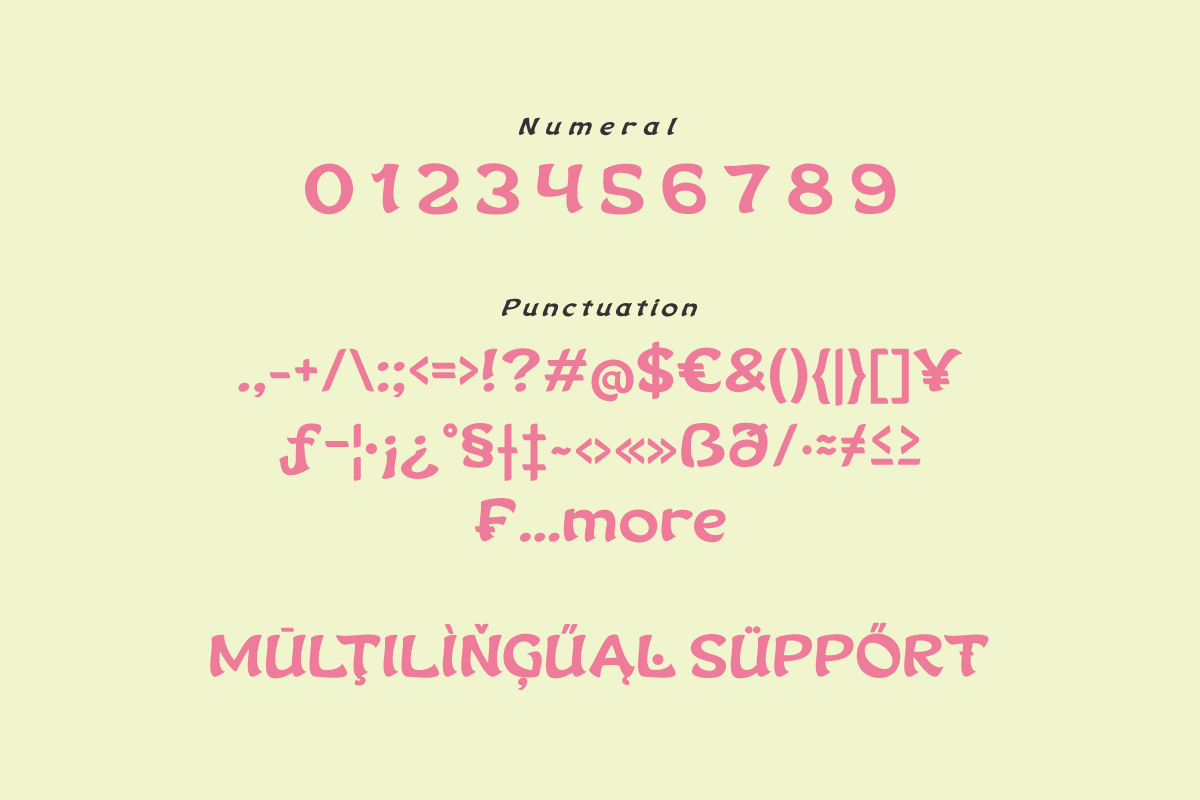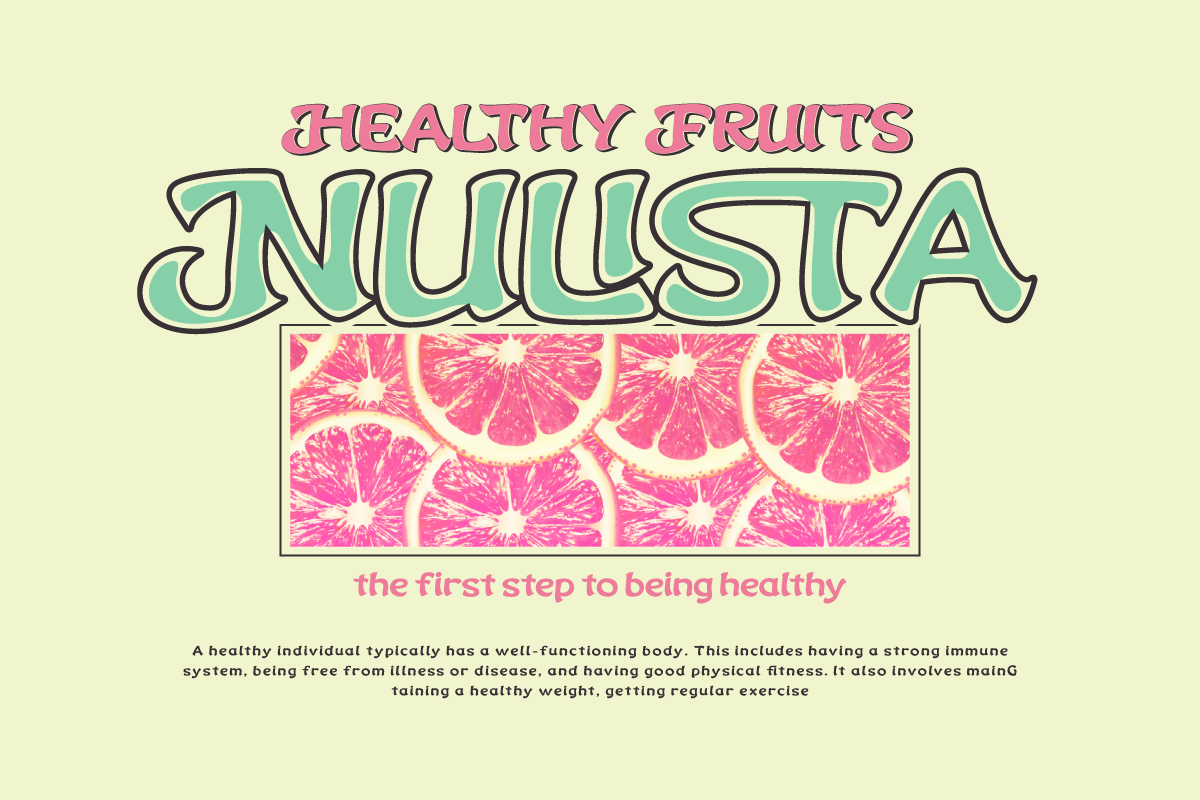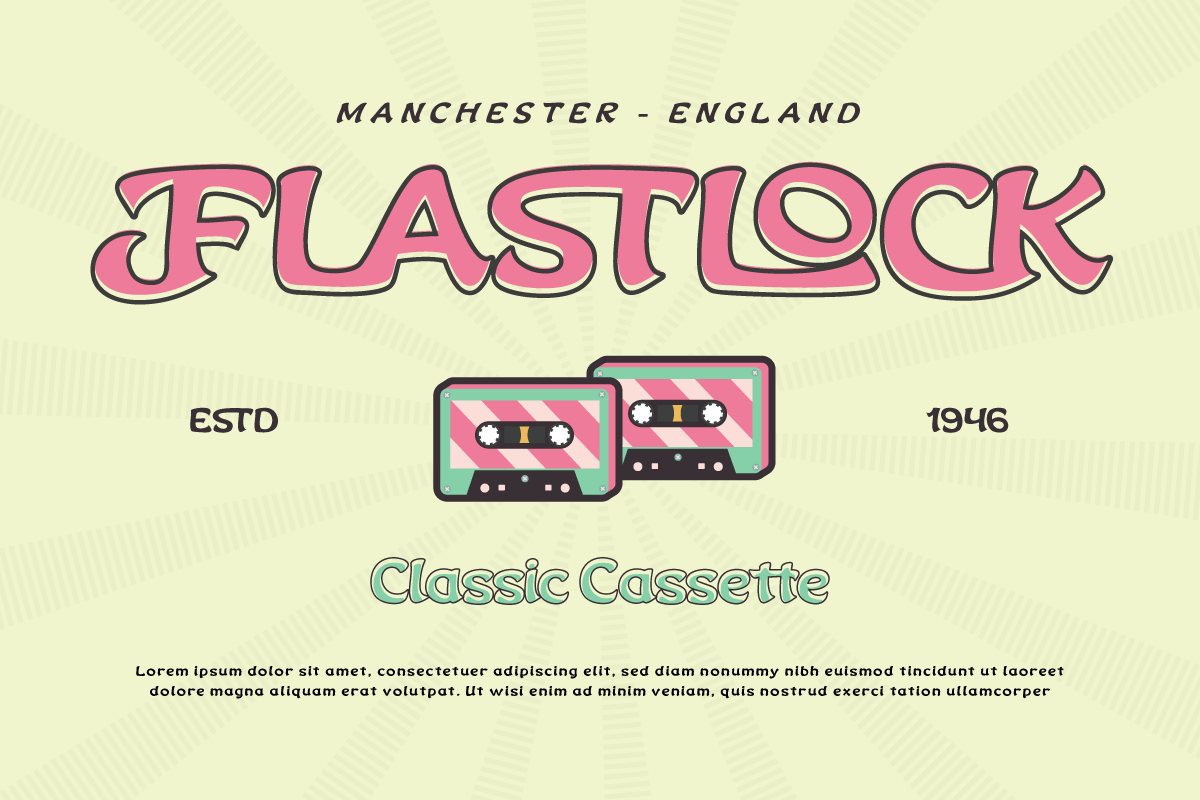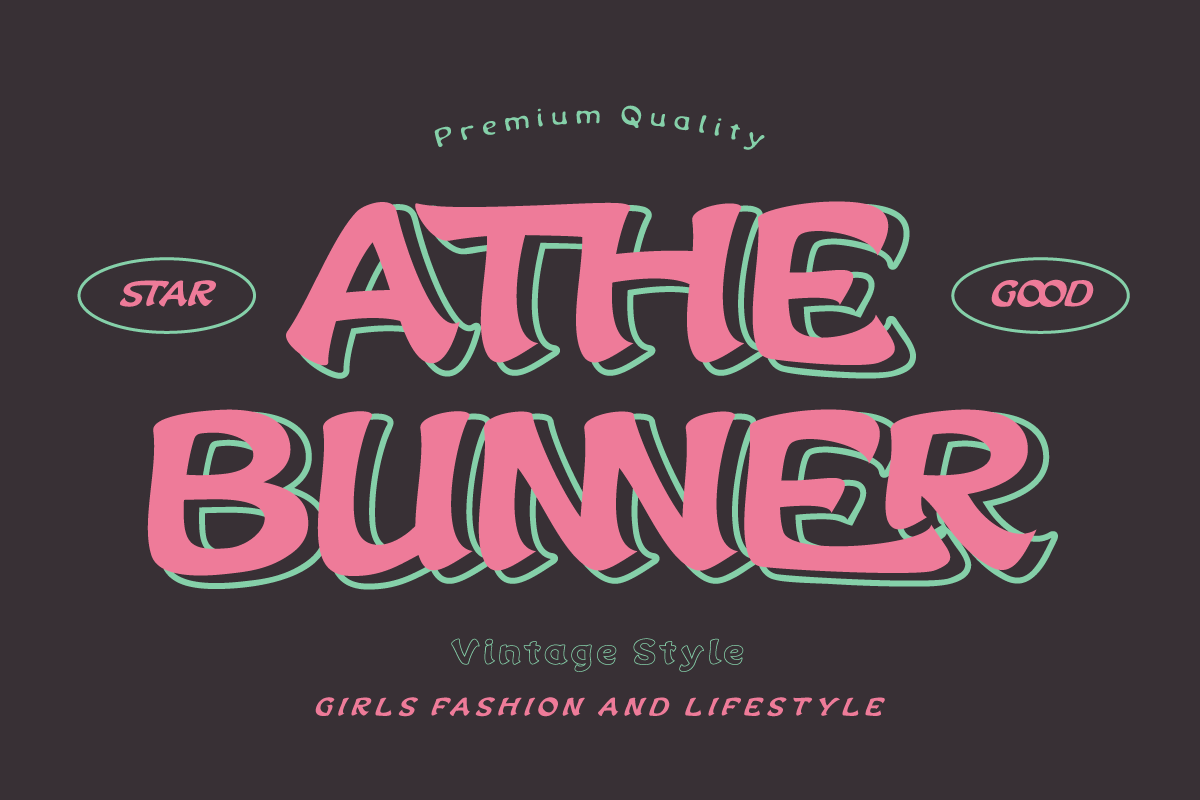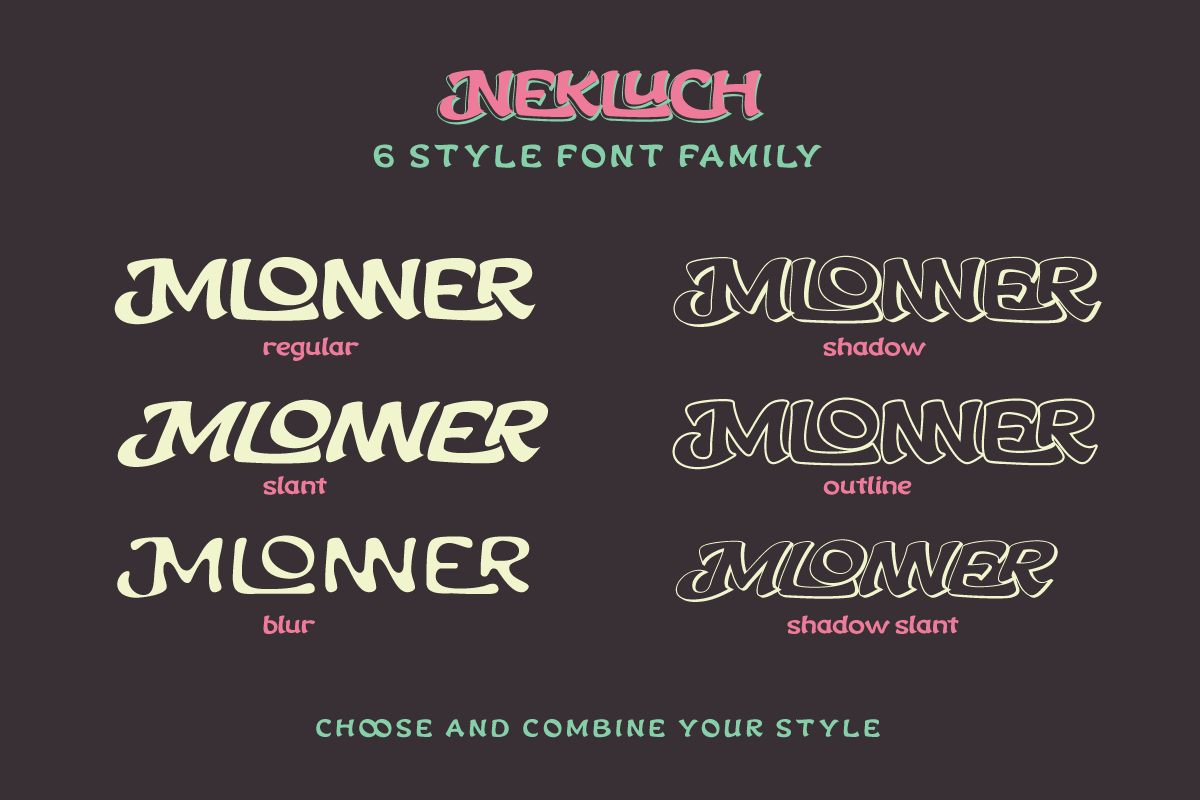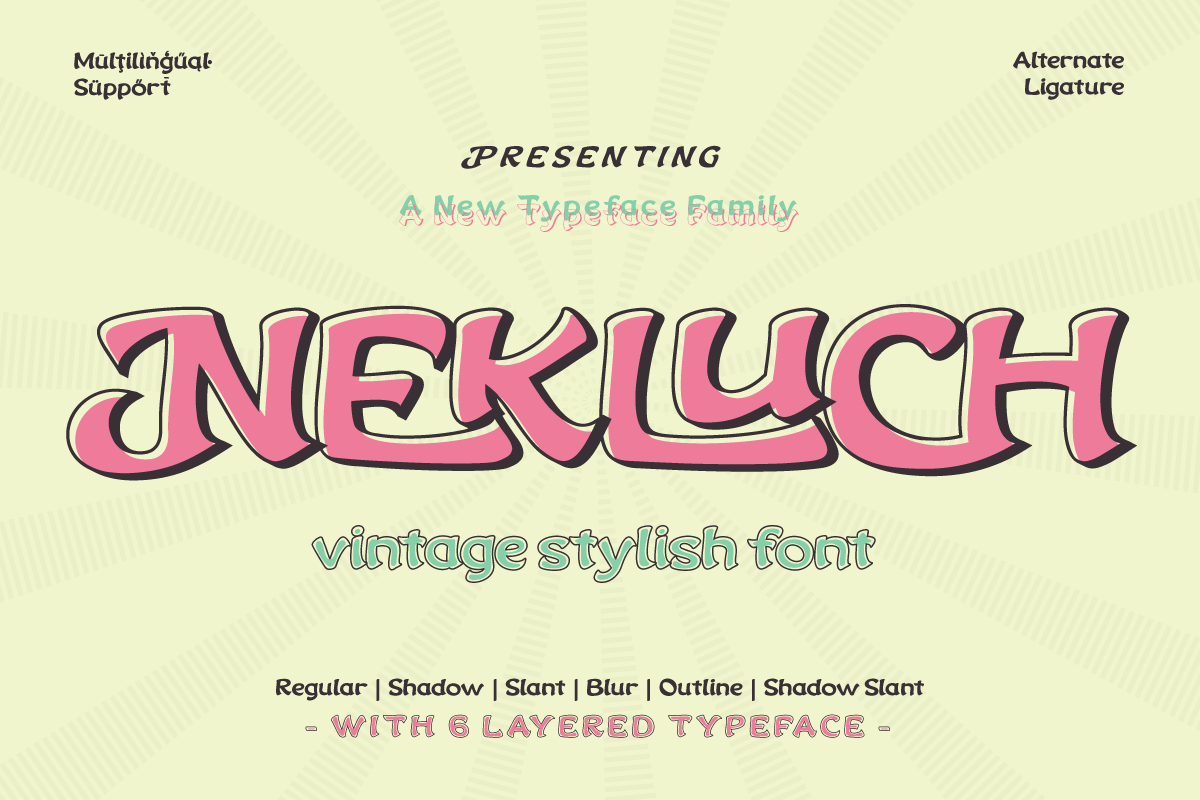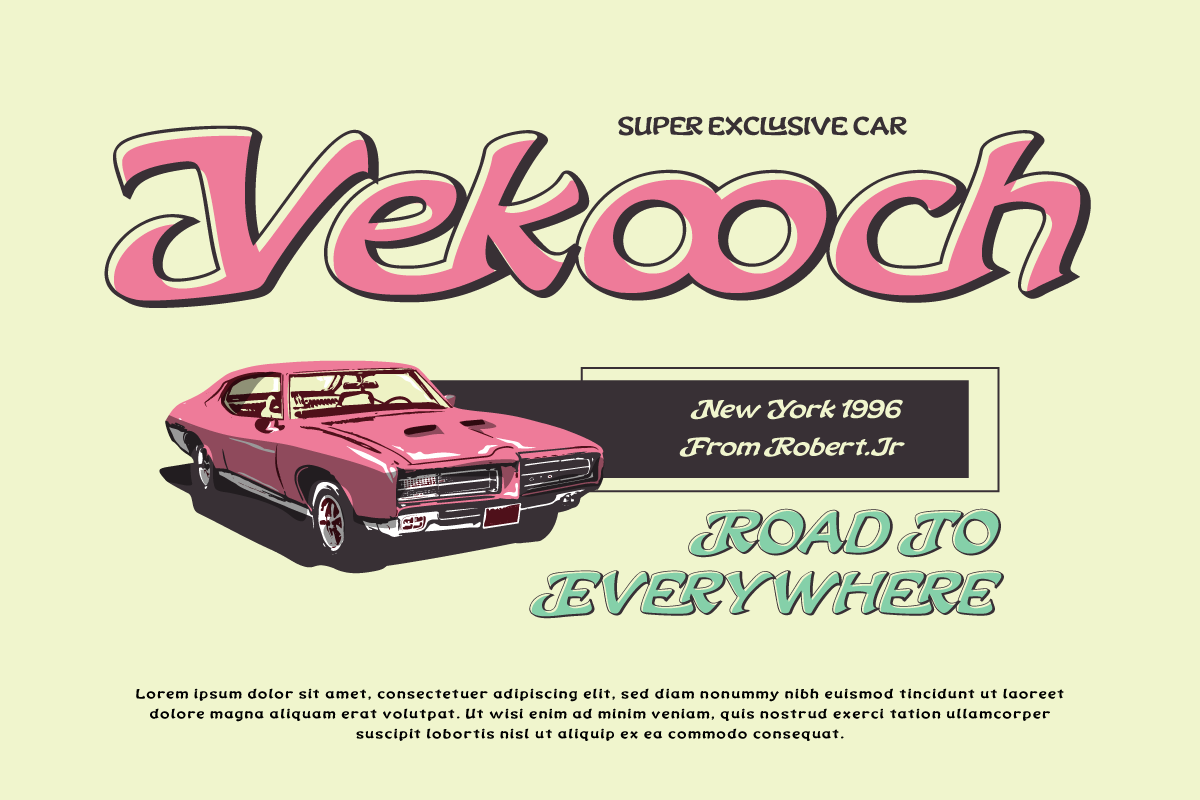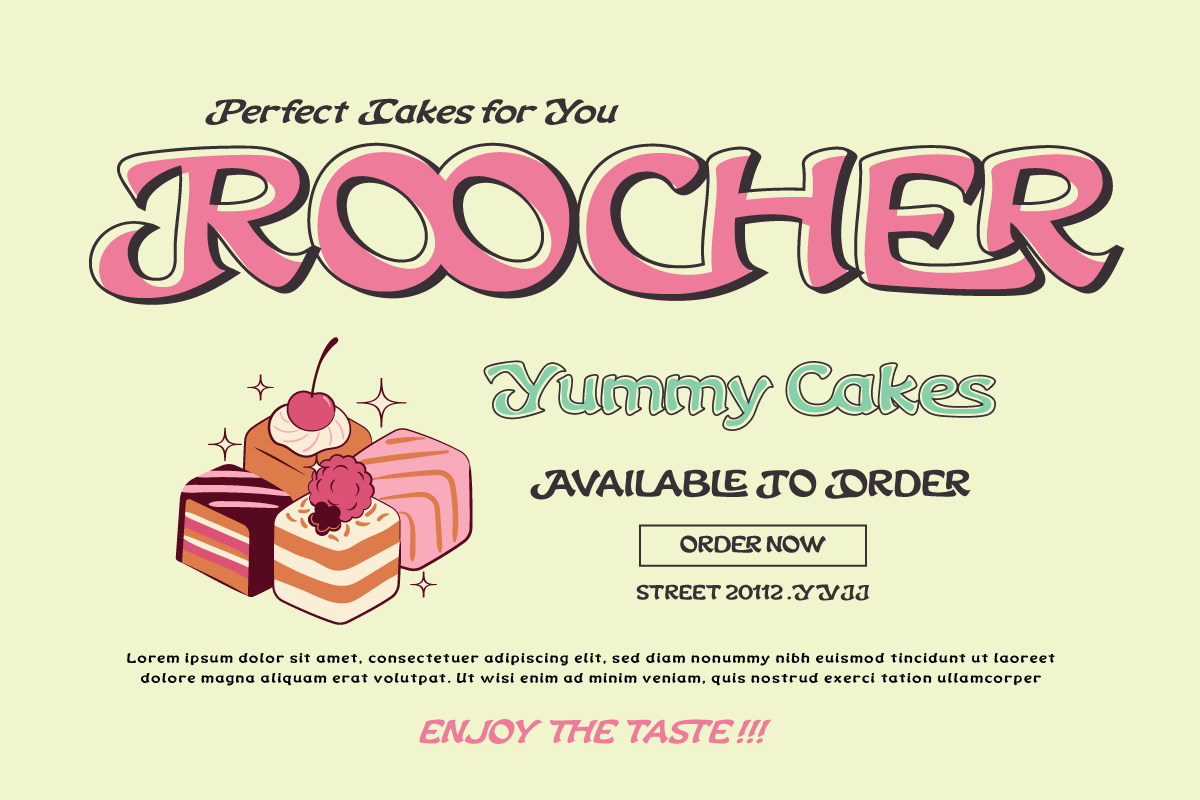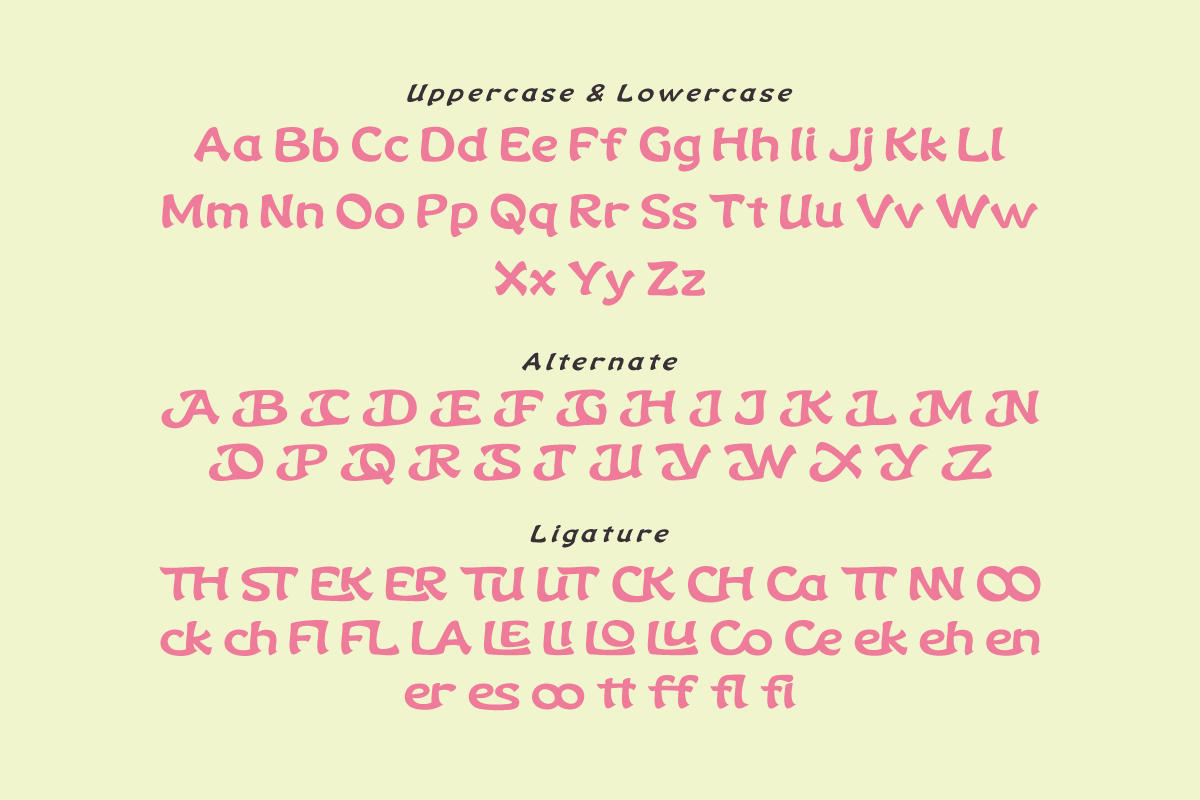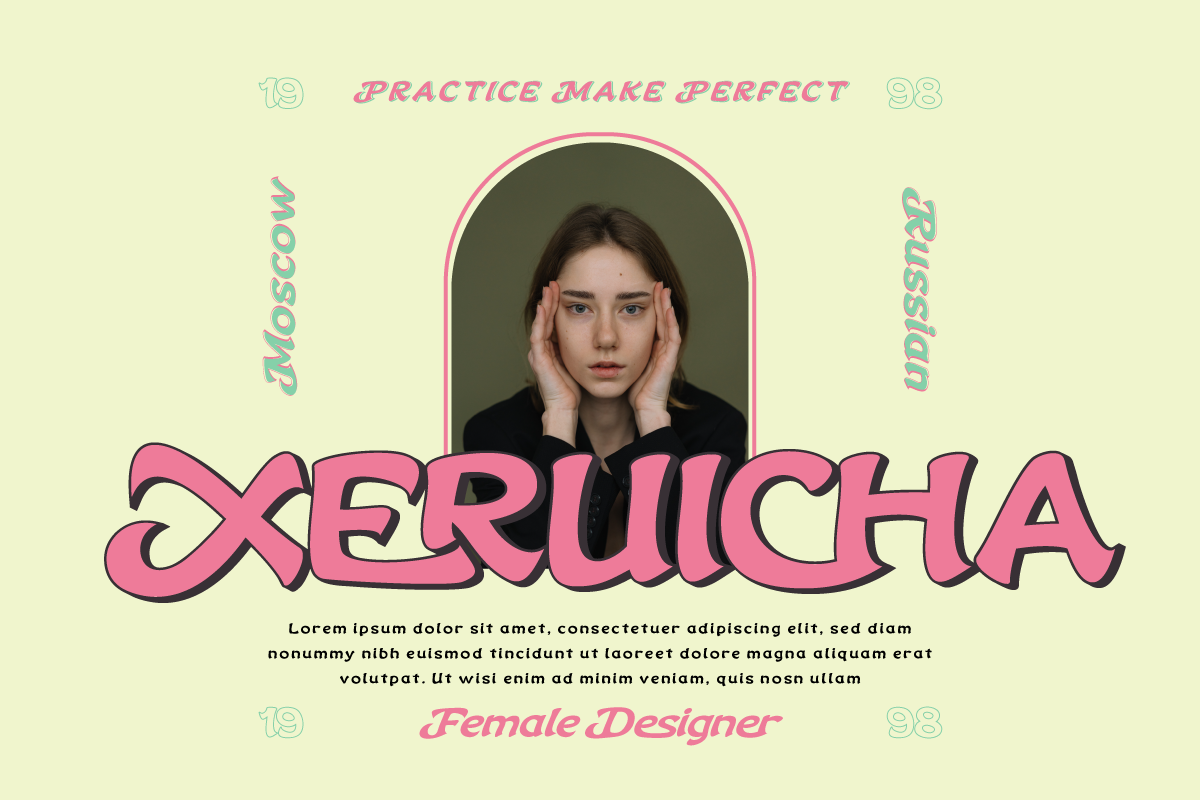
Nekluch - Vintage Display Font
The Nekluch font is the perfect reflection of the classic elegance that designers desire. With a charming Vintage Display style, this font brings an invaluable retro feel to every project. This is the perfect solution to create a classic look and a strong, nostalgic visual branding design.
What makes Nekluch truly special is its variety of features. There is a complete family that includes regular, shadow, slant, blur, outline, and shadow slant, allowing you to express your creativity with a variety of typographic styles. Also, don't miss the ligatures and alternates that add a unique feel to each letter.
Multilingual support ensures that you can reach a global audience. So, if you are looking for a font that not only looks beautiful but is also easy to use, Nekluch is a wise choice.